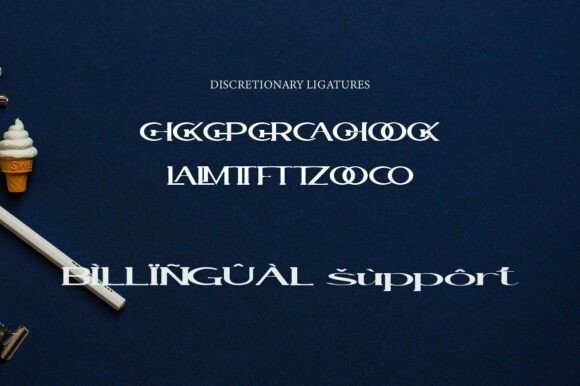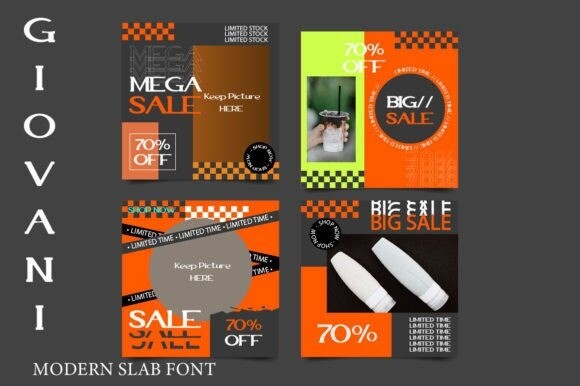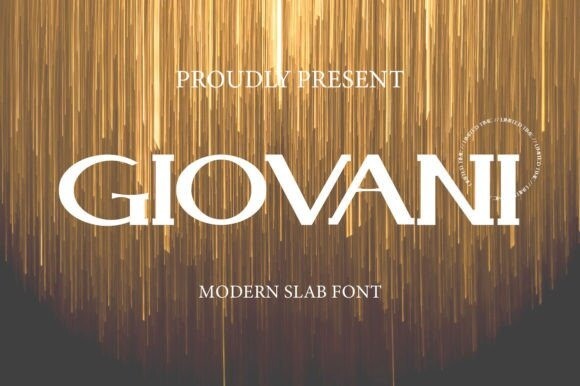
Giovani Font
Giovani Font, This is a condensed slab serif typeface manufactured by Gunaloecraft. Inspired by elegant templete design. It is equipped with features to add a kind that makes the project impressionable. Giovani Slab is also equipped with various languages so that it allows Giovani Slab Font to be used in all your projects. Giovani Slab is very suitable for use in multiple purposes or projects, including Sport, Poster, Product, Logo, Branding, Packaging and many more that you can apply with this Giovani Modern Slab Font.